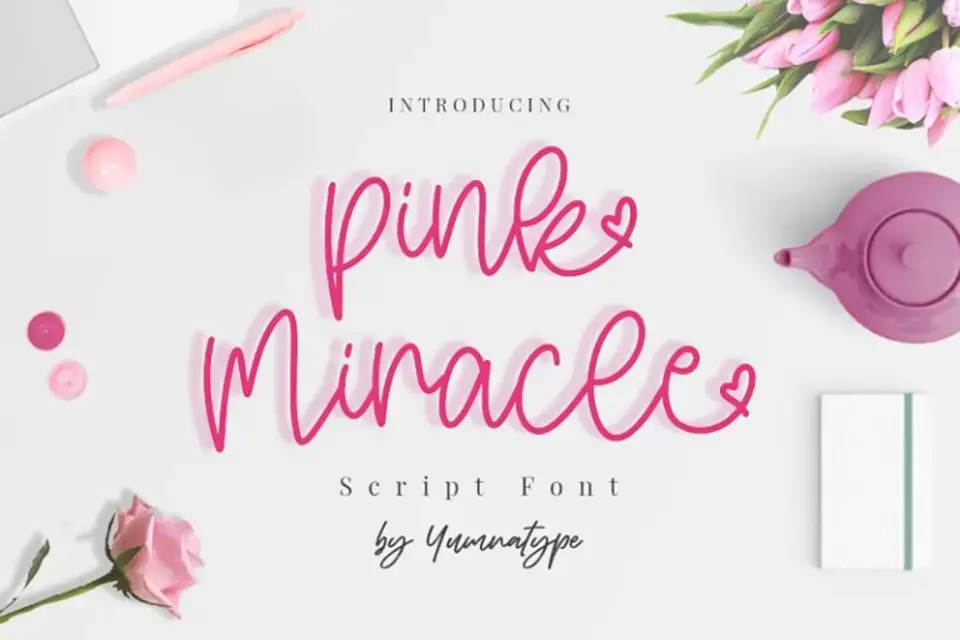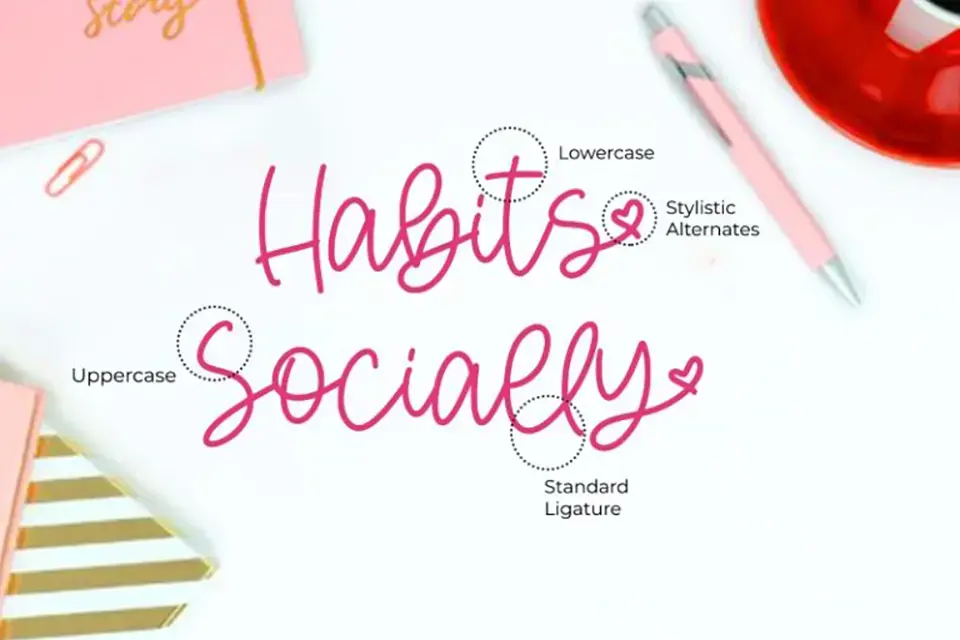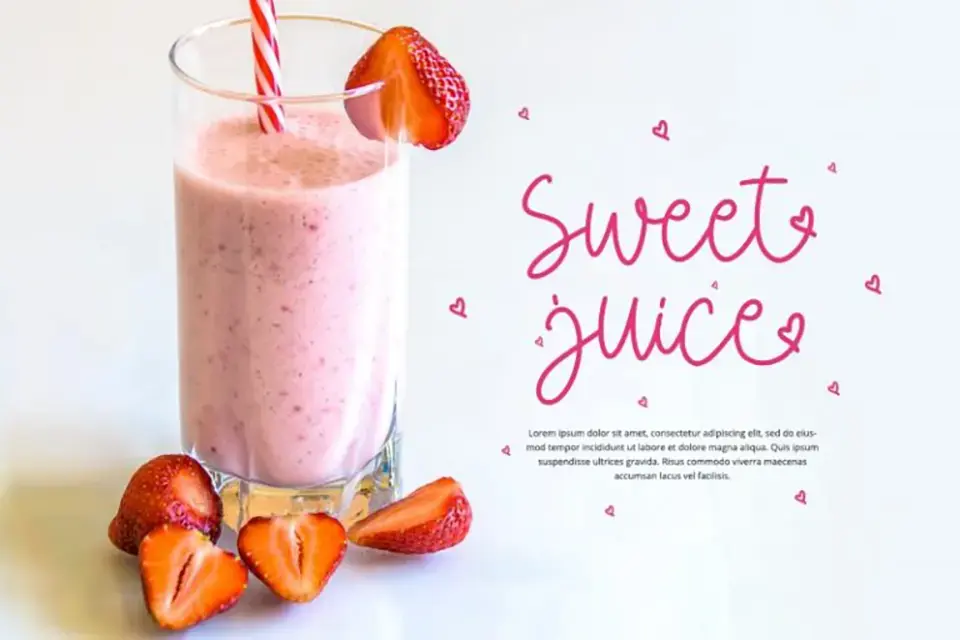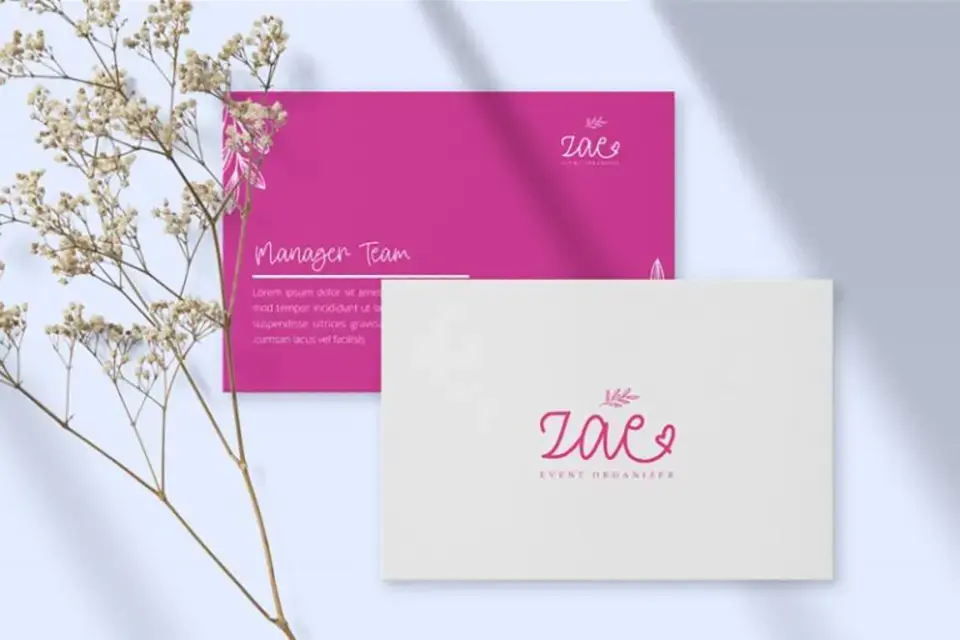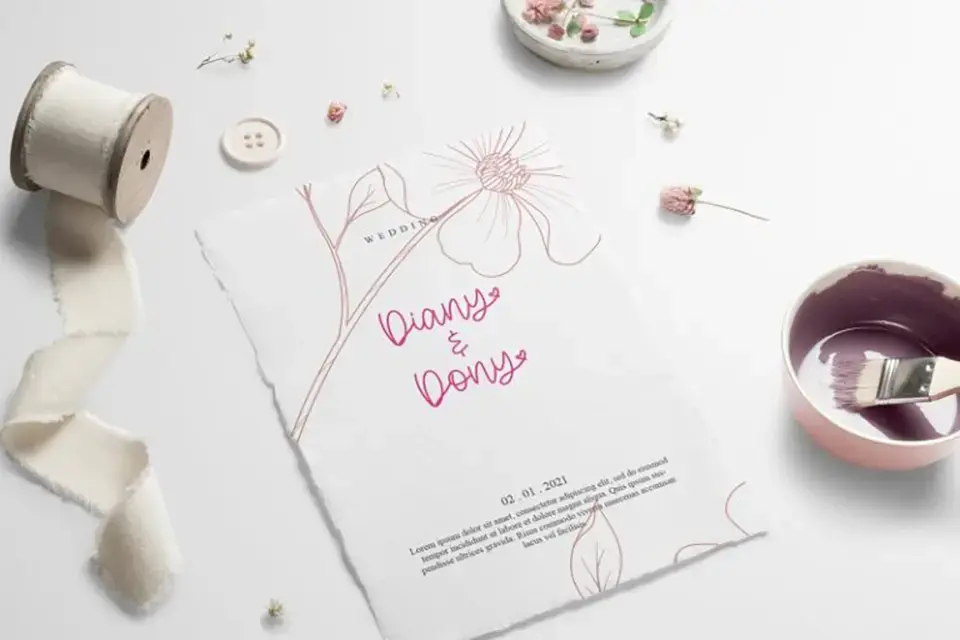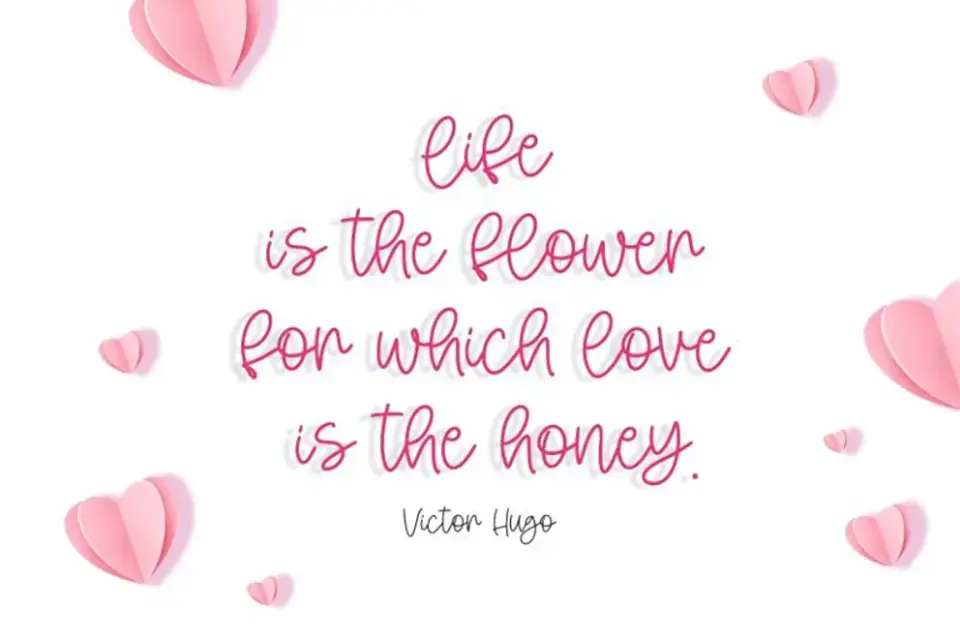
Pink Miracle Font
Designed by Yumna Family
Pink Miracle is a cursive handwritten script with light, even strokes, rounded terminals, and roomy spacing that keeps words legible even at medium sizes. The letters link in a relaxed way, giving the text a casual but still polished rhythm that suits lifestyle and boutique branding rather than strict corporate work. It works well on logos, quote graphics, packaging tags, and display headlines where you want a gentle, romantic tone without sliding into messy brush lettering. For long paragraphs, tiny captions, or rigid grid-based UI, the looping forms can feel busy and slow to read, so pairing it with a clean sans serif for body copy is usually the smarter choice.
soft logo wordmarks for boutiques and beauty brands
romantic quote graphics and social media posts
packaging headlines for lifestyle and handmade products
long-form body text or dense paragraphs
strictly corporate or technical branding systems
tiny UI labels or data-heavy editorial layouts
Perfect for branding, headline, and logo, with a cute and decorative style.